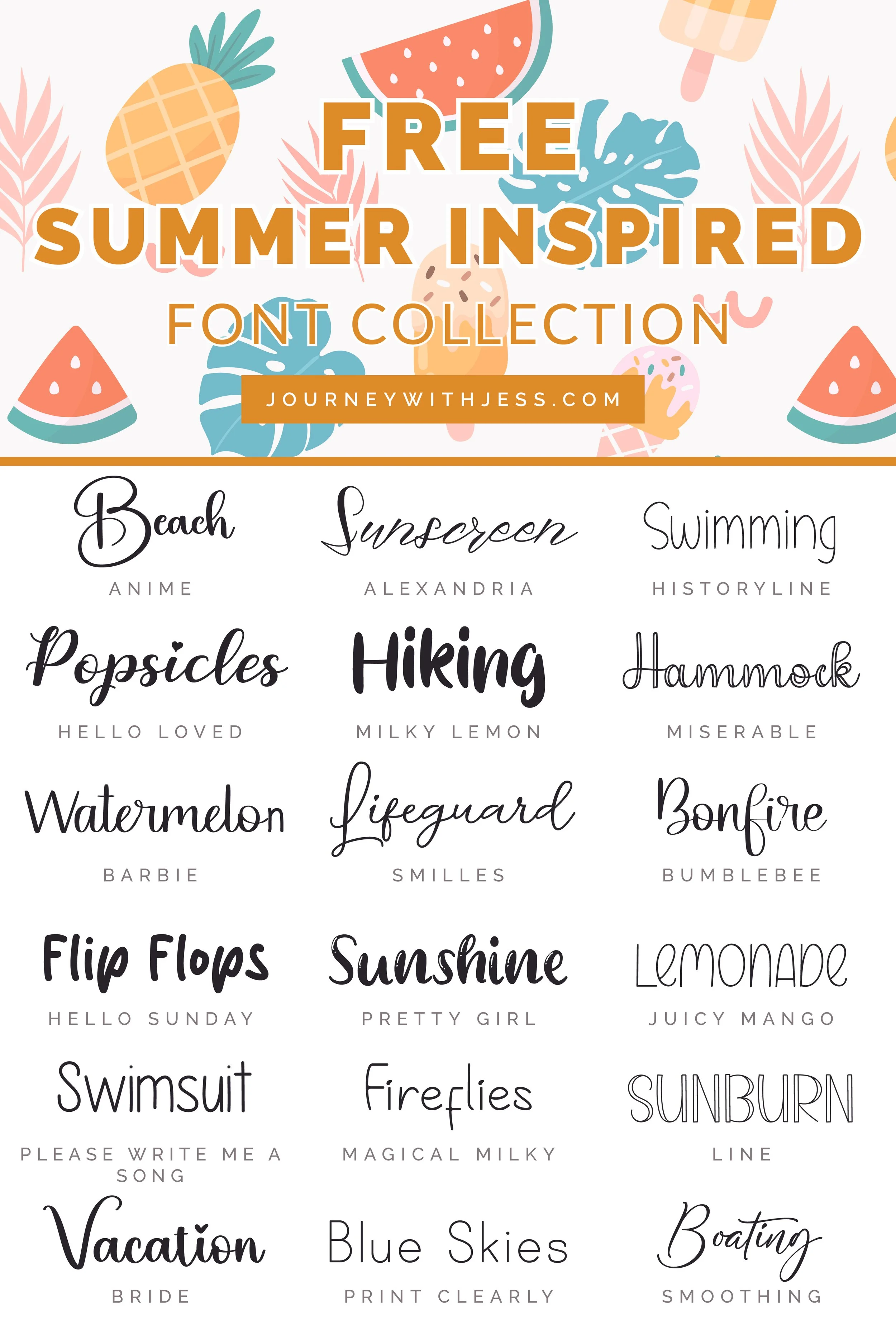
Free Font Collection: Summer Inspired Fonts
Summer is finally here, and I've got something cool to share with you. Drumroll, please... introducing my latest font collection!
You know that feeling when the sun kisses your skin, and everything feels lighter and more relaxed? Well, my fonts are here to capture that essence and bring it into your designs. With this new collection, you can infuse your projects with the laid-back vibes of summer and make them shine brighter than the midday sun.
Imagine a handwritten font that mirrors the carefree strokes of a beachgoer doodling in the sand. Or perhaps a playful typeface that dances across the page, bringing to mind ice cream cones and backyard barbecues. Yep, my font collection has got it all, and then some!
From breezy script fonts that make you feel like you're sipping a fruity cocktail on a hammock, to bold and funky display fonts that scream "pool party," there's a little something for every summer adventure. These fonts are like the flip-flops of typography—comfortable, stylish, and ready for a good time.
So, whether you're designing invitations for a poolside bash, creating posters for an outdoor music festival, or simply jazzing up your social media posts to reflect the sunny vibes, my latest font collection has got your back. It's the perfect accessory for your summertime creative escapades.
So kick off your shoes, feel the grass tickle your toes, and dive headfirst into the font extravaganza of the season. Trust me, you won't want to miss out on this hot new collection. It's like capturing the spirit of summer in every letter.